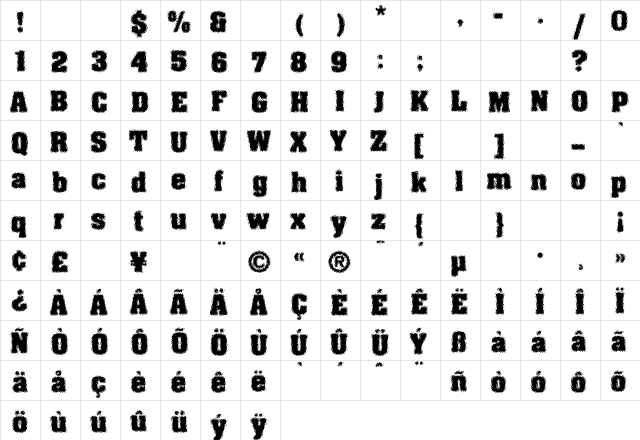
Machauer Glas
Design Context for Machauer Typeface
Machauer is a composed and adaptable typeface that performs quietly and consistently across a wide range of design contexts.